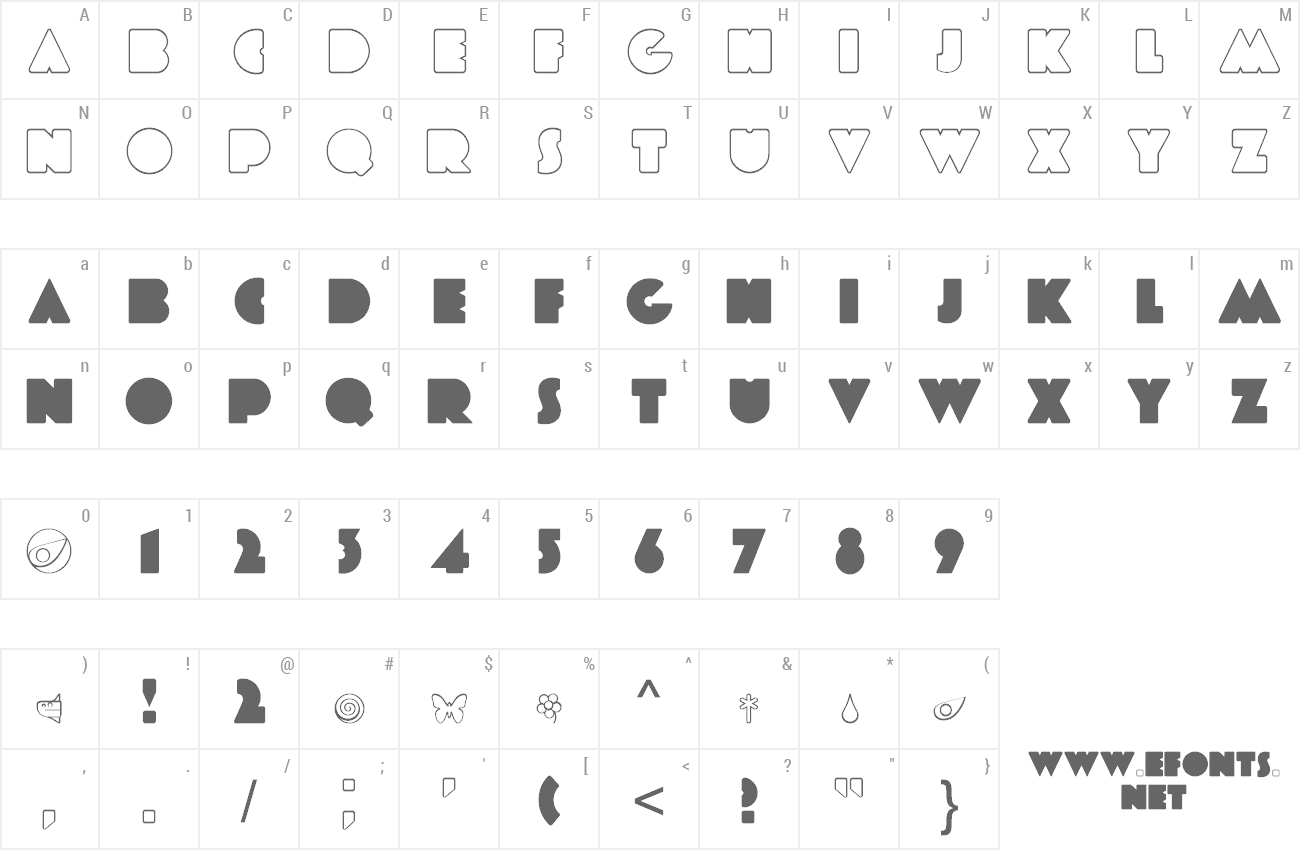
| Font name: | Every Truetype is a Wisefont |
| Author: | Teco |
| Note by Teco | |
This font was inspired by Coldplay's “Mylo Xyloto” and “Every Teardrop is a Waterfall EP” releases. The characters and numbers are in constant process of recycling and improving, check this page periodically to get always the latest version. |